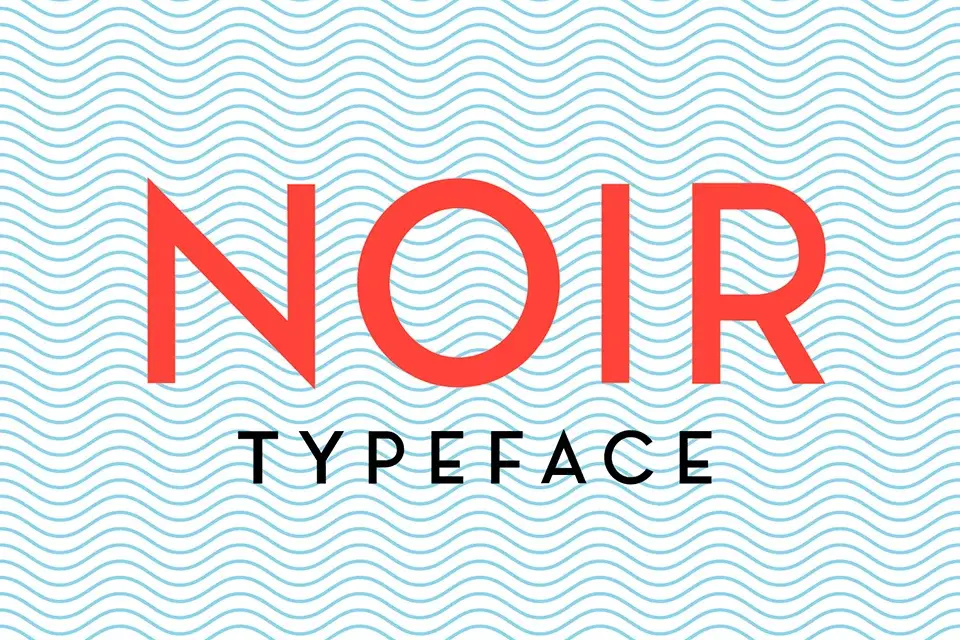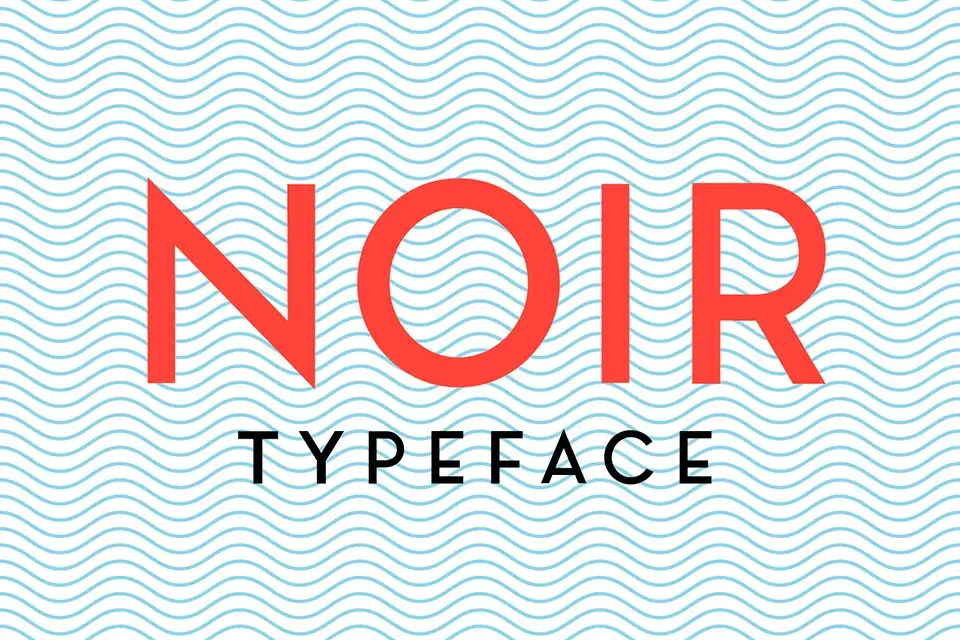
Noir Font Family
Noir font family is a collection of sans-serif typefaces inspired by early 20th century geometric fonts. It was designed by Matthias Guggisberg and Matthias Balsiger.
Key Features
- Contemporary aesthetics with a geometric structure
- Organic personality with a touch of warmth in each form
- Highly legible and suitable for long body text